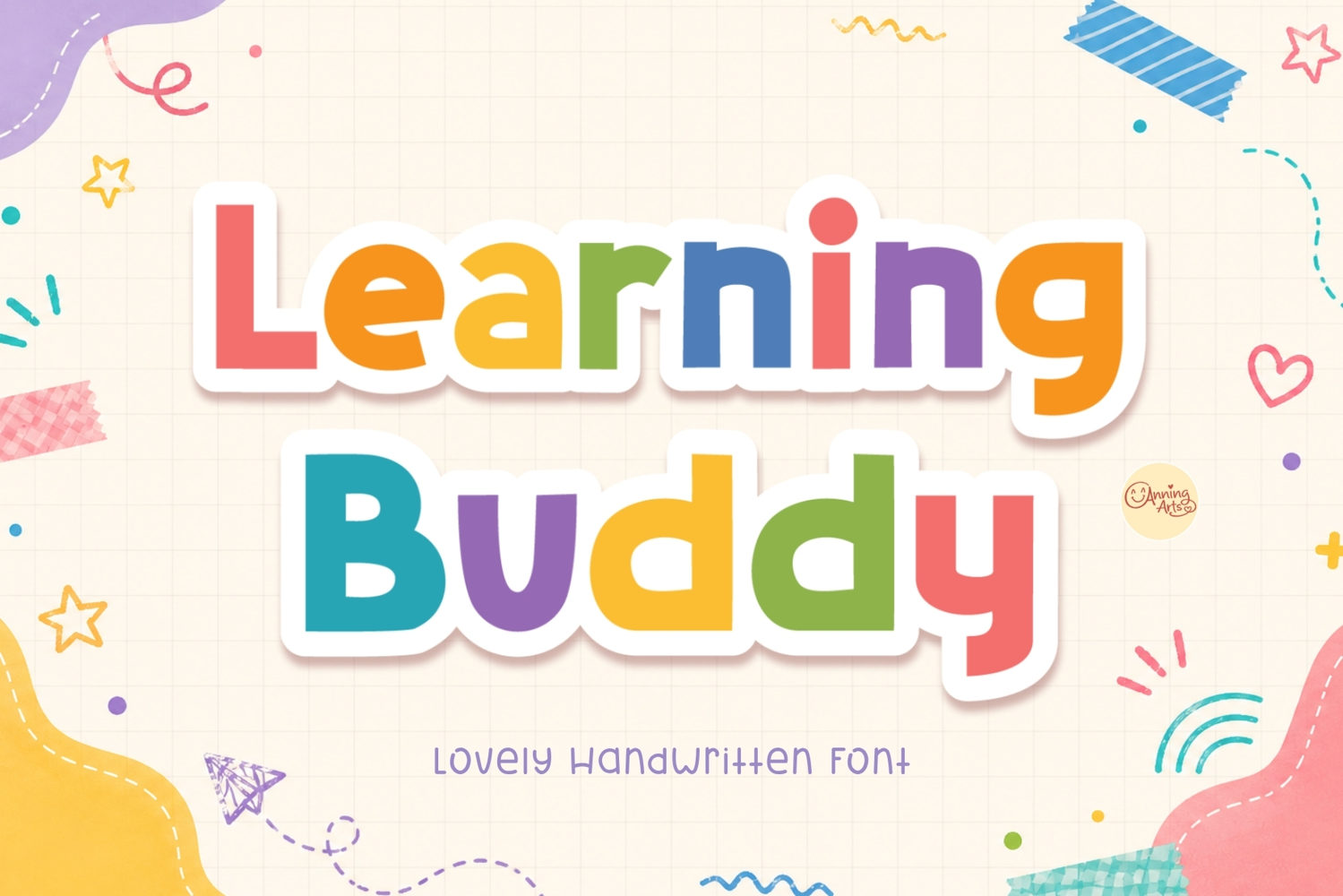
Learning Buddy is a playful handwritten font designed especially for children’s projects, classrooms, and educational resources. With its bold, rounded letterforms, colorful personality, and excellent readability, this font is perfect for creating engaging learning materials that children will love.
Ideal for teachers, homeschool resources, worksheets, classroom decor, educational printables, flashcards, bulletin boards, kids' books, planners, birthday invitations, T-shirts, tote bags, Cricut crafts, sublimation, stickers, logos, branding, and fun digital designs. Includes multilingual support for a wide range of languages.